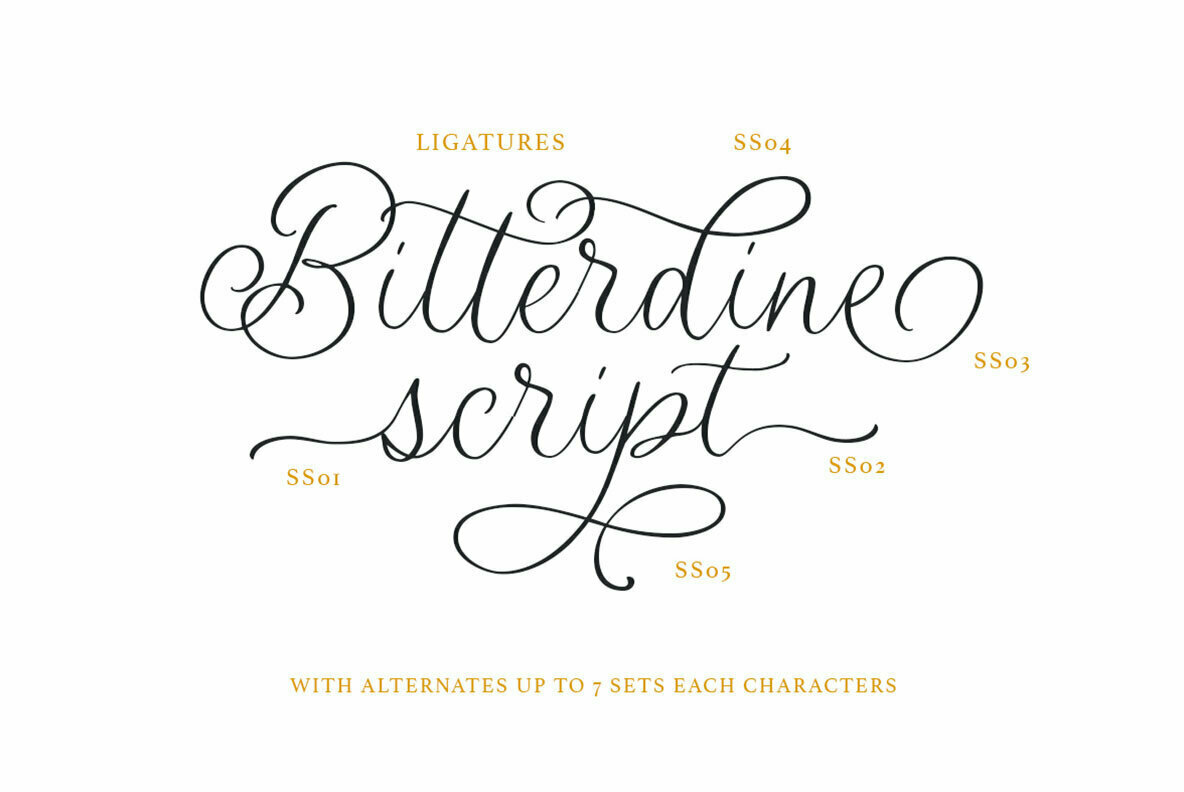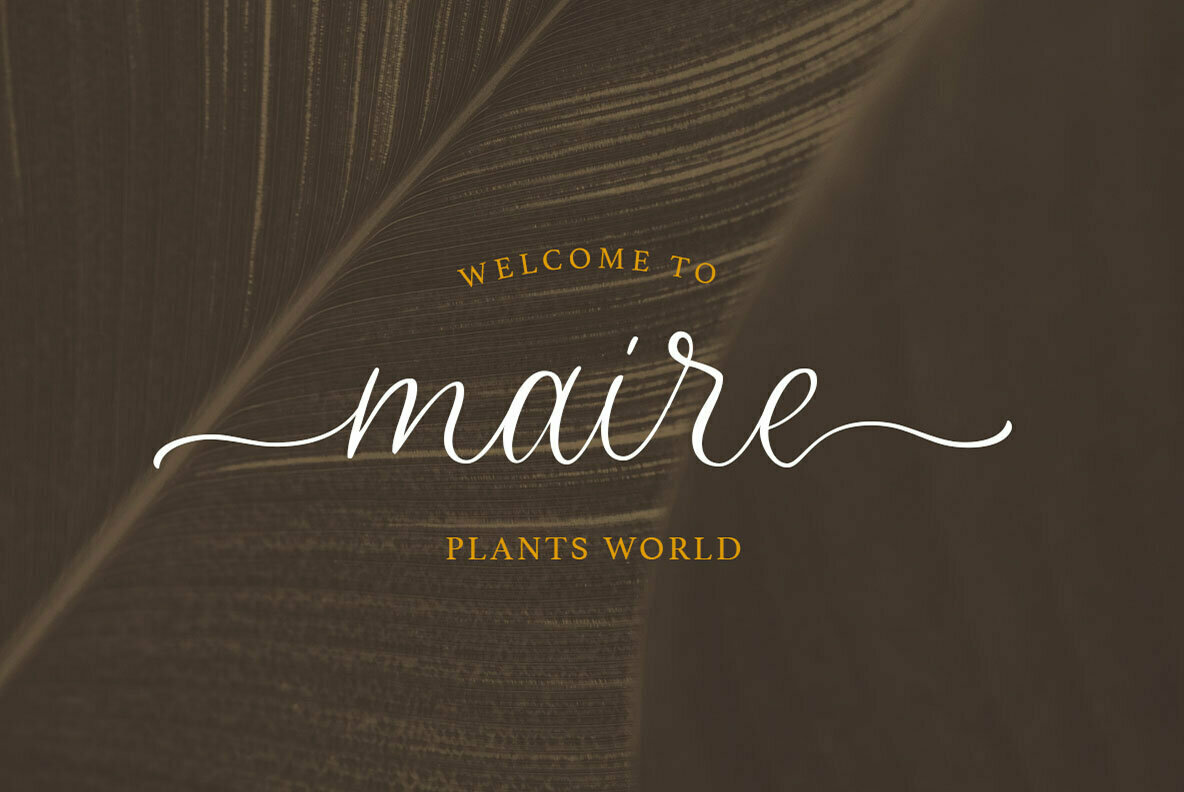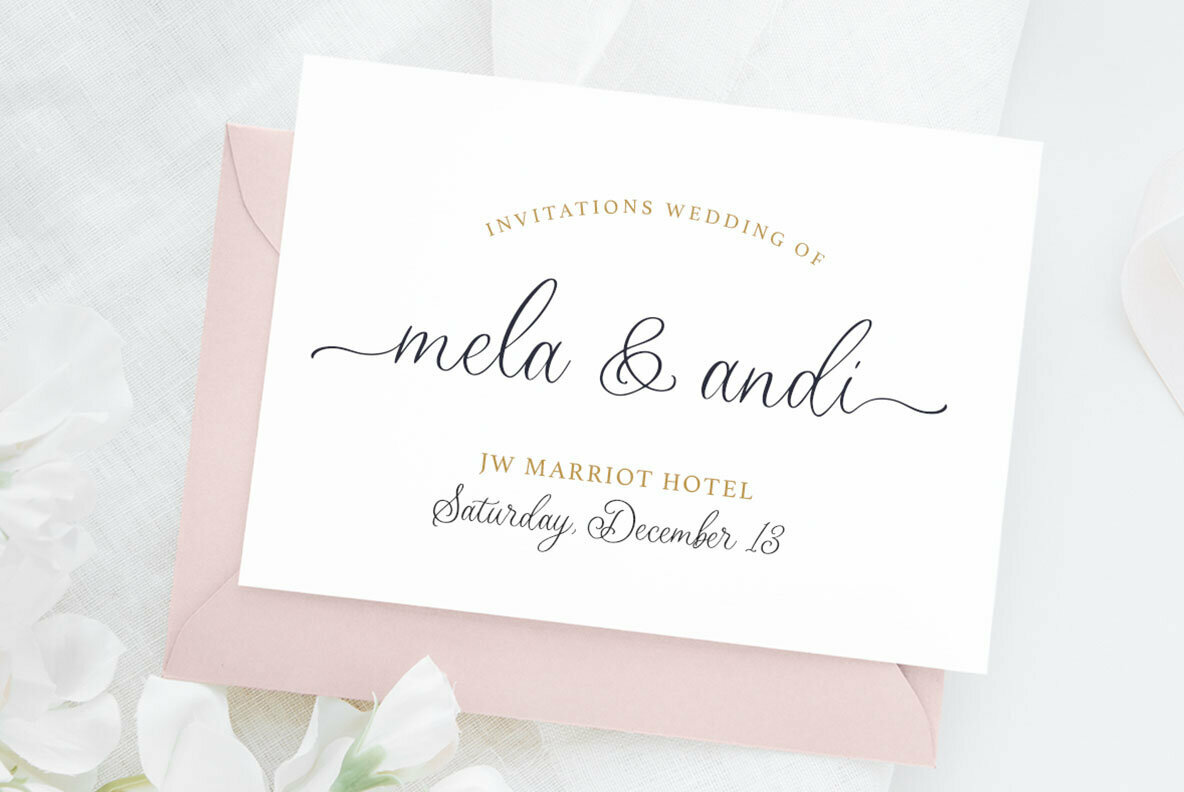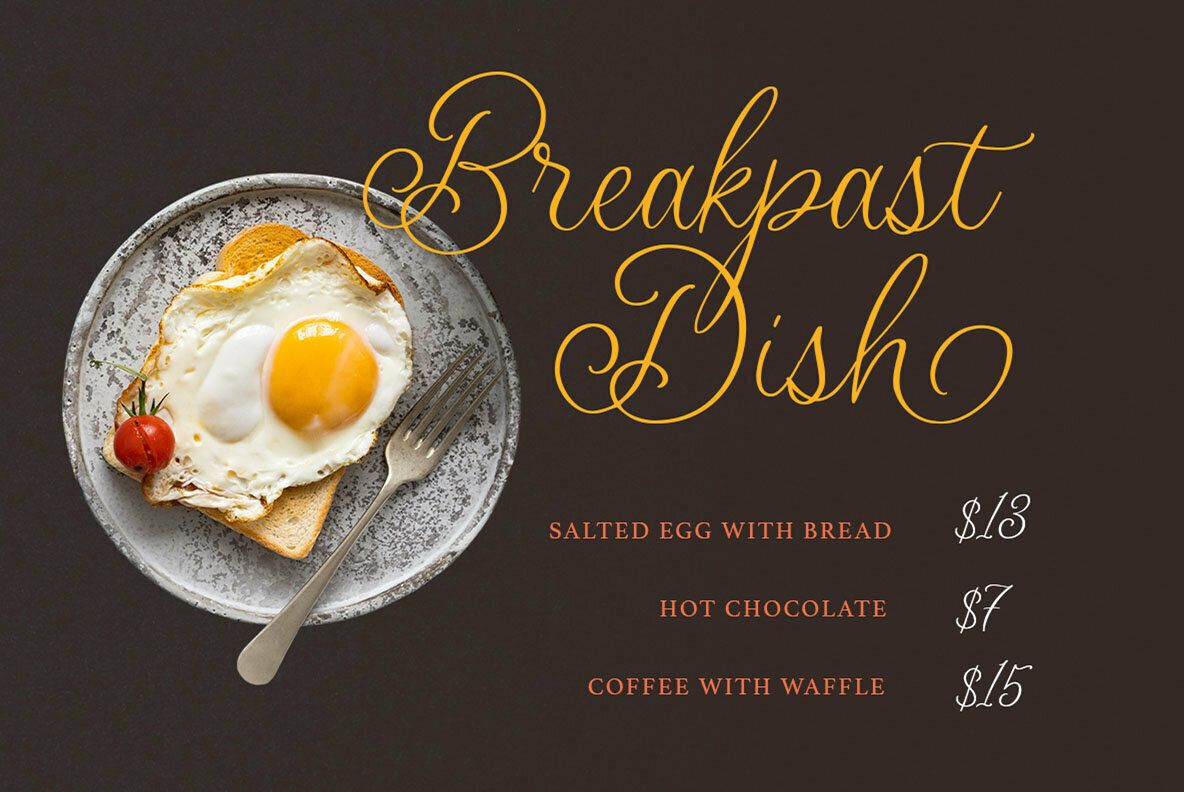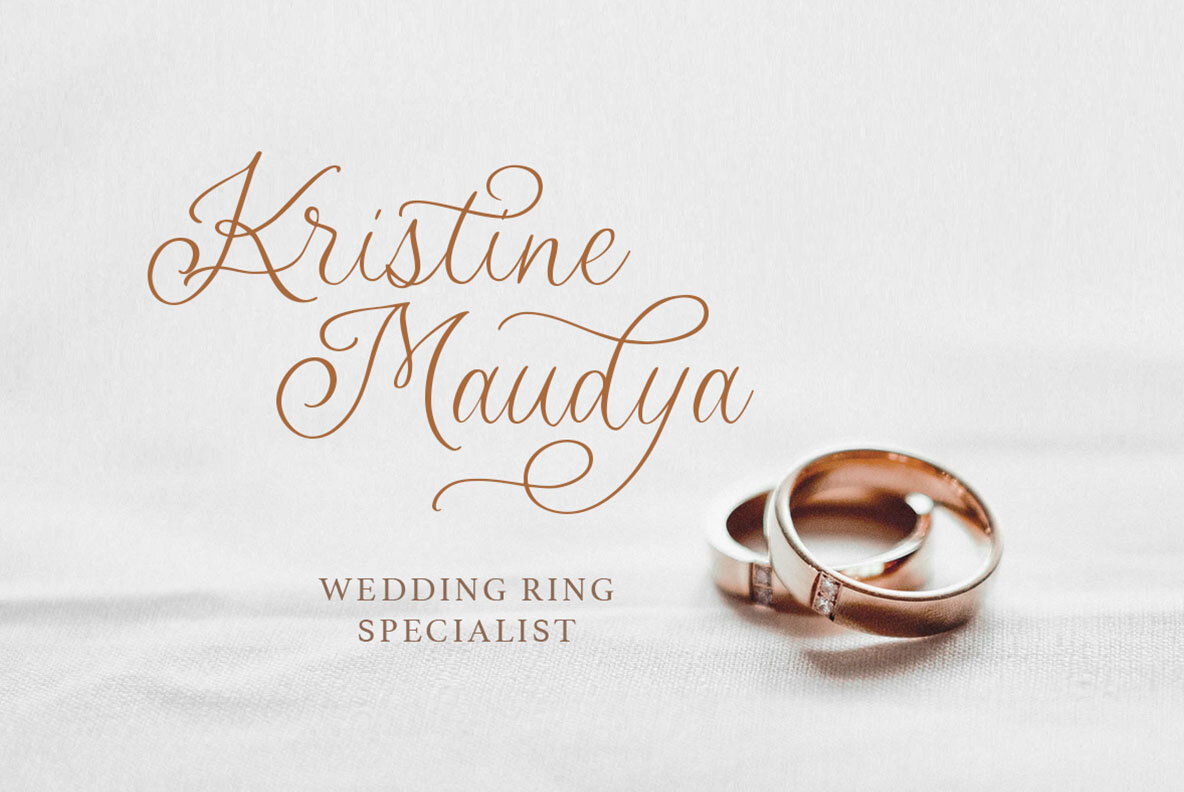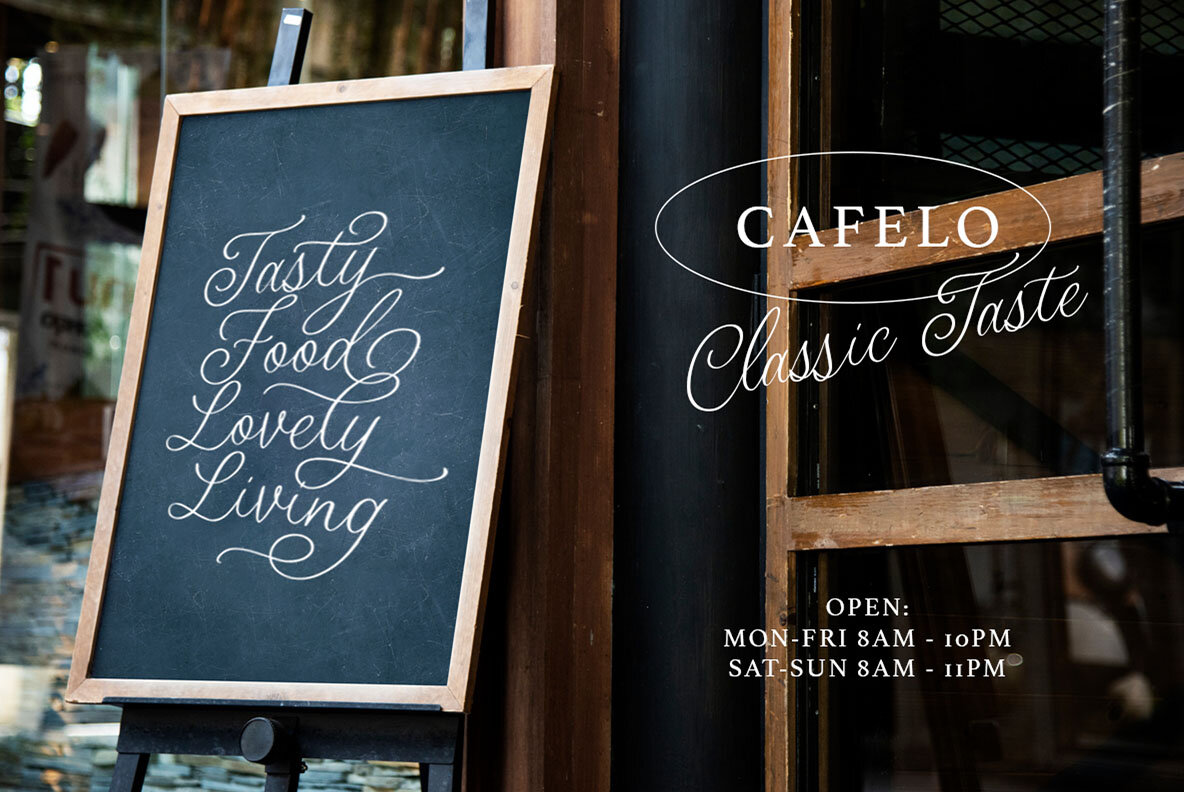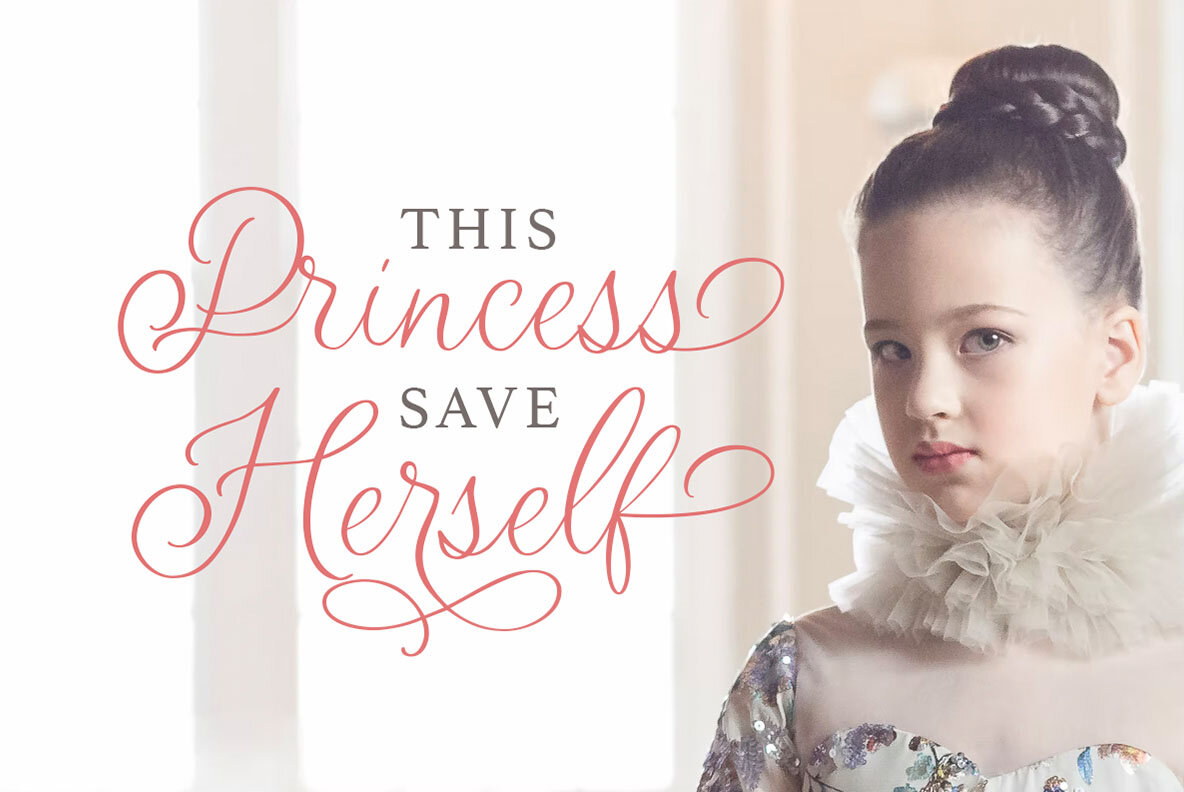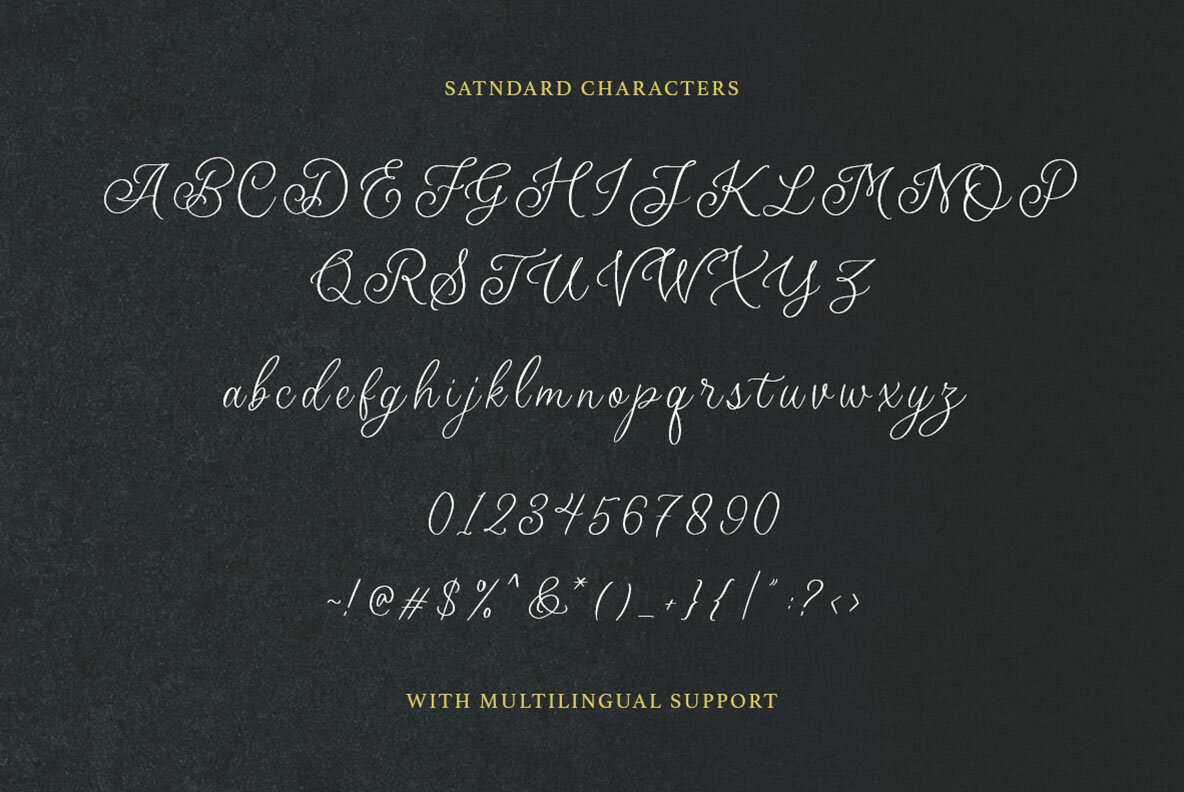
Bitterdine Font
Bitterdine Regular
Bitterdine emerges as an elegantly modern calligraphy script, offering a touch of natural style in every stroke. This versatile font includes a full spectrum of characters including lowercase, uppercase, and symbols, and extends its utility to multilingual support. With its detailed ligatures, initial and terminal swashes, and a variety of alternates reaching up to seven sets per character, Bitterdine adapts seamlessly to bespoke design needs. Features: Bitterdine’s subtle elegance makes it suitable for diverse design projects, ensuring remarkable results every time.Bitterdine Script: Intuitive Calligraphy for Versatile Design